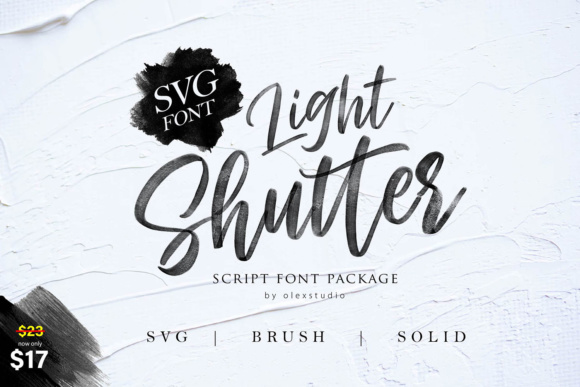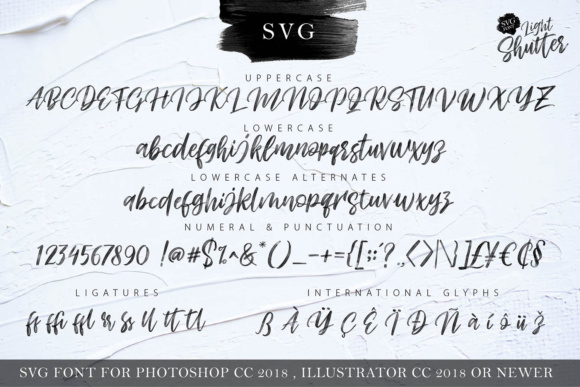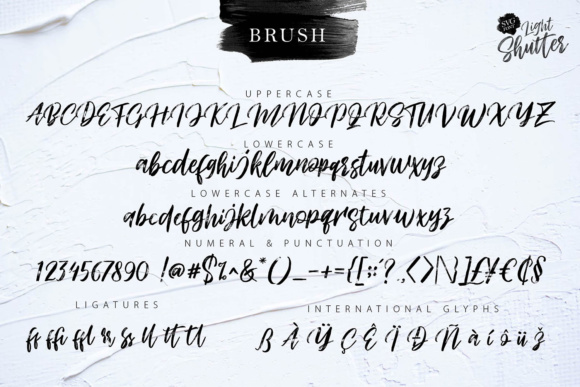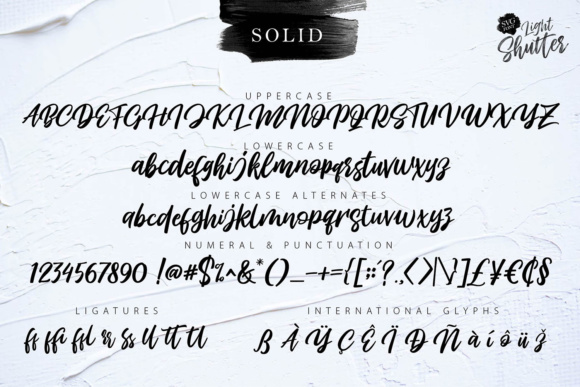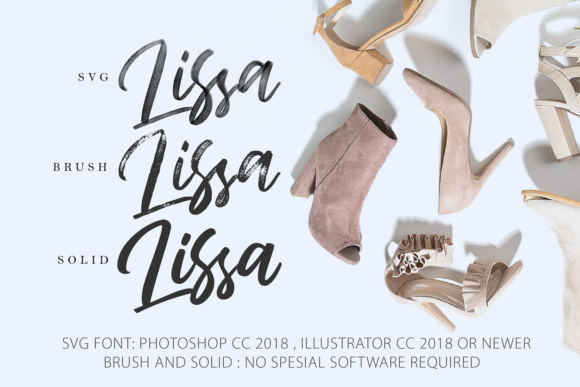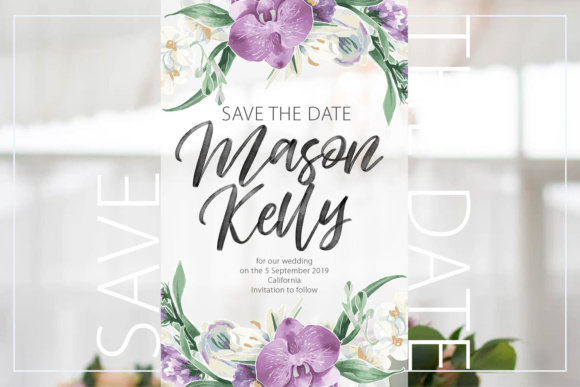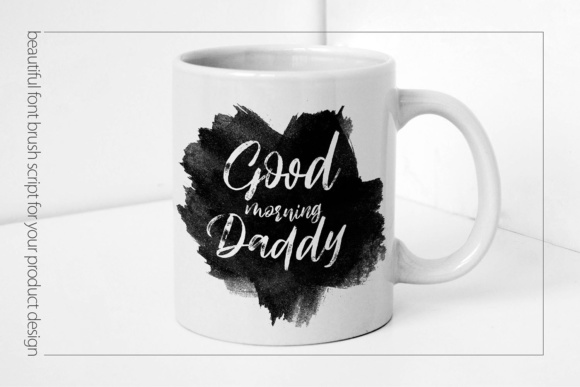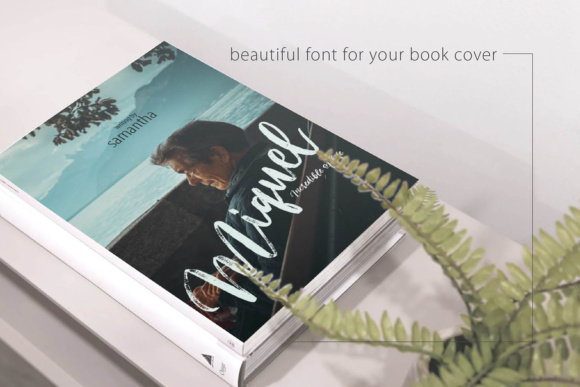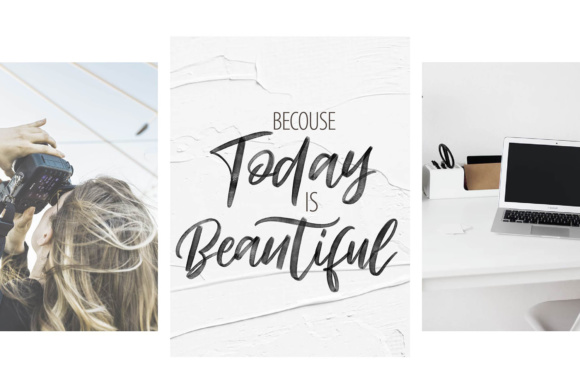
Light Shutter Font
About Light Shutter Font
Light Shutter is a combination of 2 regular fonts (Brush & Solid) and a SVG font.
This trio will look great on a multitude of different designs, and is a great addition to any designers toolkit.